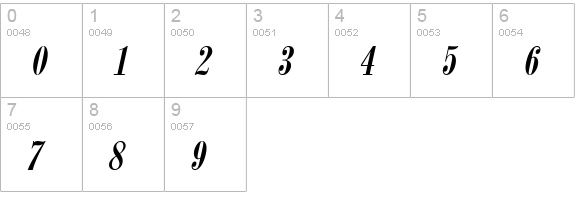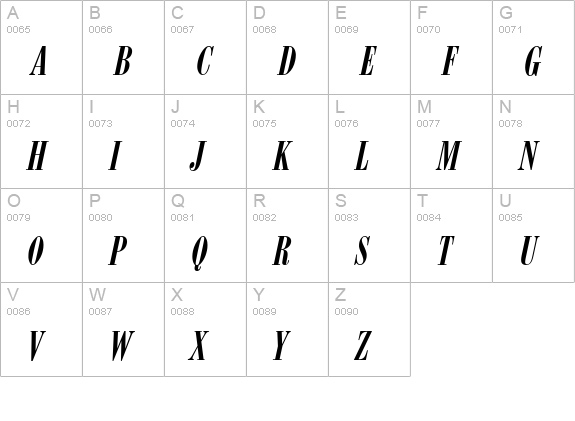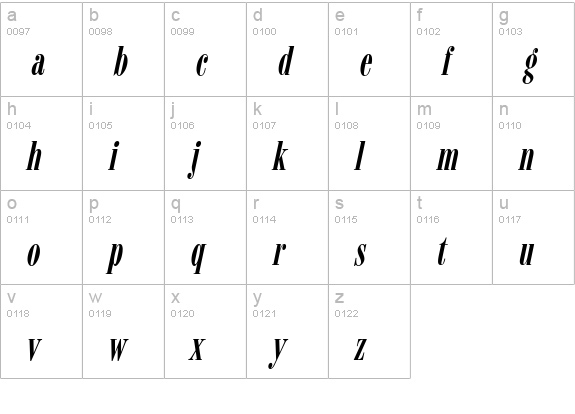
Update 537 Italic Font Details
Update 537 Italic is a distinctive, italic variant in the Update typeface family \xE2\x80\x94 well suited to design and typography projects.
Update 537 Italic font is a stylish and elegant typeface that adds a touch of sophistication to any project. With its slanted and cursive letterforms, this font exudes a sense of grace and refinement. Whether you are designing a logo, creating a beautiful invitation, or crafting a striking headline, Update 537 Italic font will elevate your design to the next level. Its sleek and flowing lines create a sense of movement and dynamism, making it perfect for projects that require a touch of modernity. One of the best things about Update 537 Italic font is that it is completely free. Yes, you read that right! This font is freely available to download at FontsMarket.com. So, you can add this stunning typeface to your collection without spending a dime. Not only is Update 537 Italic font visually appealing, but it is also highly versatile. Its legibility ensures that your message comes across clearly, no matter the size or context. From small body text to large headlines, this font adapts effortlessly to any layout. In addition to its aesthetic appeal and versatility, Update 537 Italic font also offers a wide range of characters and glyphs, allowing you to add special accents and unique symbols to your designs. With this font, you have the freedom to express your creativity and create truly personalized designs. So, why wait? Enhance your next design project with the elegance and versatility of Update 537 Italic font. Download it for free at FontsMarket.com and unlock a world of possibilities for your creative endeavors.